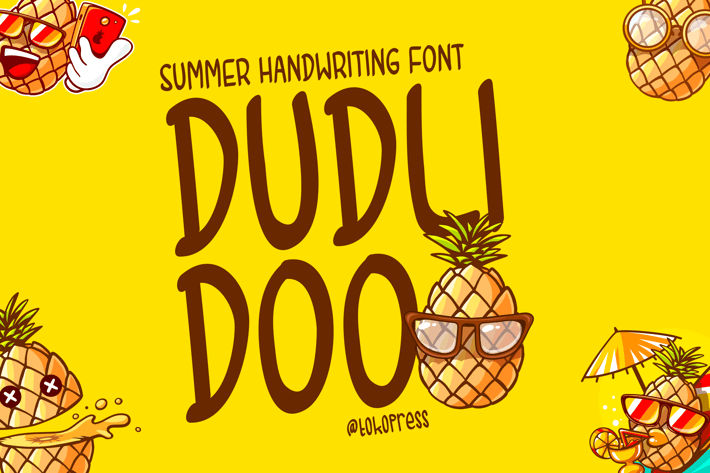
Dudlidoo - Kids font
Dudlidoo is a tropical-inspired handwritten kids font designed with energetic strokes, playful loops, and a carefree attitude. Its bubbly character design features a rounded, uneven structure with relaxed rhythm, giving it a natural, hand-doodled feel—like a fruit punch on a hot day. From exaggerated terminals to soft curves, this font embodies quirky friendliness.
Dudlidoo is expressive and youthful, ideal for creators who want to bring sunshine and smiles to branding, YouTube thumbnails, classroom materials, or summer-themed packaging. It’s loud in character yet casual in tone, echoing the energy of beach parties, sticker labels, and fruity merch.
If you’re crafting materials for kids, building a lifestyle brand, or hosting a tropical event, Dudlidoo delivers instant personality. Use it for editorial headlines, podcast graphics, merch design, educational prints, or pop-style promotions. Its informal, happy vibe creates connection — making your message both approachable and unforgettable.
Whether it’s for playful branding or bold typographic statements, Dudlidoo brings that splash of summer you didn’t know you needed.
Key Features
Why Designers Choose Dudlidoo :
- Handcrafted strokes with dynamic flow and quirky style
- Perfect for tropical visuals like party invites, kids activities, and product packaging
- Easy to read, even in wild creative compositions
- Authentic personality with uneven rhythm, loose form, and friendly warmth
Use It For :
- Kids branding & school worksheets
- Fruit-themed product labels
- Poster design & event promo
- Social media posts & animated graphics
- Basic latin A-Z and a-z, Numbers, Punctuation